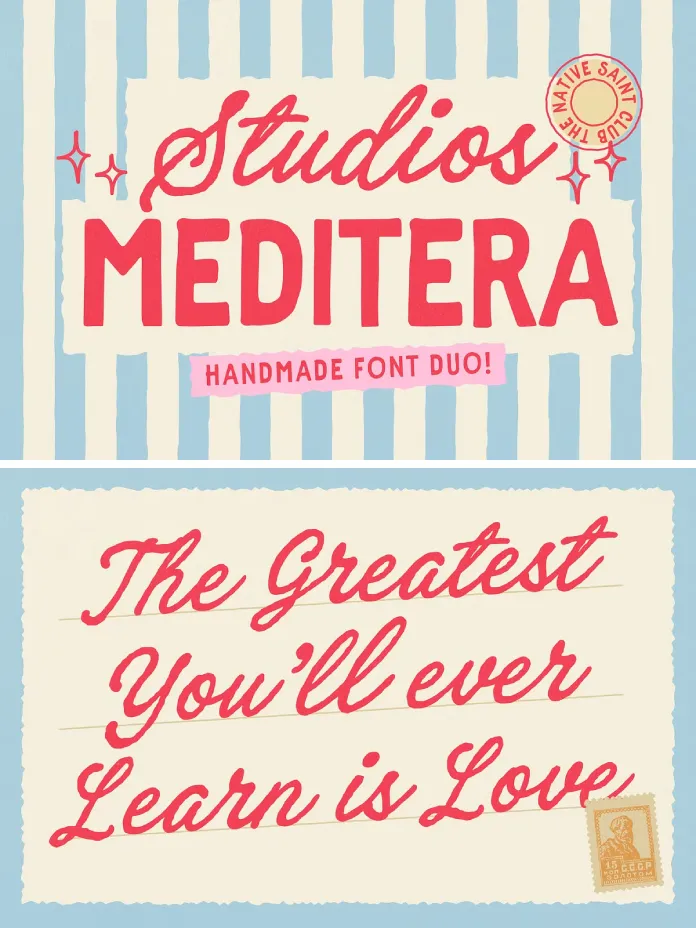
Is Studios Meditera the Best Hand-Drawn Mediterranean-Style Font Duo for Branding?
This duo landed in my type library on a Tuesday, and by Friday it had replaced three other script pairings in my active rotation. That speed of adoption rarely happens with a single typeface, let alone a duo. So I tested it across packaging mockups, café signage layouts, and a real client logo brief to see if the hype matched the hand lettering. This font duo, released through The Native Saint Club on Creative Market, pairs an organic script with a hand-drawn sans serif. Together they recreate the loose, sun-bleached charm of coastal storefront signs. This review breaks down where the duo excels, where it struggles, and why it might become a default choice for lifestyle branding in 2026.
What Makes Studios Meditera Different From Other Script Pairings?
Most script and sans-serif pairings feel engineered. This duo feels drawn. The script half carries visible brush pressure changes, slightly inconsistent baselines, and looping connectors that mimic real handwriting rather than vector-smoothed cursive. I call this quality “controlled imperfection”: deliberate irregularity that still reads cleanly at small sizes. The hand-drawn sans-serif partner uses soft terminals and uneven stroke widths, so it never fights the script for attention. Instead, it grounds the composition the way a simple hand-painted shop sign grounds an elaborate awning.
This pairing logic matters because Mediterranean branding has a specific visual vocabulary. Think weathered ceramic tile, faded café awnings, and hand-stenciled produce crates. This duo translates that vocabulary into a usable digital toolkit, rather than just referencing it through generic distressed textures.
How Does Studios Meditera Perform in Real Branding Projects?
I tested the duo across four project types: a packaging label, a restaurant menu, a social media template, and a logo concept. The script performed best at larger display sizes, where its handmade texture and organic curves read clearly. At smaller body-copy sizes, legibility dropped slightly, so I paired it with the sans serif for any supporting text. That pairing decision is exactly what the foundry intended, and it works.
Packaging and Labels
On a mock olive oil label, the script handled the brand name beautifully, while the sans serif handled ingredient details without competing for visual weight. The combination felt authentic rather than themed, which is the real test for any “vintage Mediterranean” font.
Logos and Wordmarks
For logo work, I recommend isolating two or three letters from the script rather than setting an entire word. The connecting strokes are gorgeous, but they can crowd shorter brand names if you do not adjust tracking manually.
Why I’m Calling This the “Coastal Authenticity Framework”
I built a quick framework while testing this duo, and I think it applies to any Mediterranean-inspired branding font. The Coastal Authenticity Framework rates a typeface on three axes: handmade texture, regional specificity, and small-size legibility. This pairing scores high on the first two and moderate on the third. That tradeoff is honest, and most foundries hide it. Here, the imperfection is the entire selling point, so accepting a legibility tradeoff at small sizes is reasonable.
Designers chasing a coastal aesthetic should weigh these three axes before buying any script font. A typeface can look beautiful in a marketing preview and still fail at six-point type on a label. This font duo does not pretend otherwise, and that transparency earned my trust faster than flashier duos I have tested previously.
Where Studios Meditera Falls Short
No font duo is perfect, and this one has real limitations. The character set, while solid, does not include extensive alternate ligatures beyond the standard set, so long brand names may repeat letterforms in noticeable ways. Additionally, the sans serif partner, while versatile, leans casual enough that it may clash with brands wanting a more corporate-adjacent feel alongside the script.
If your project needs heavy multilingual support with extended diacritics, test the glyph set first. Coastal European branding often requires accented characters, and not every handdrawn font handles those gracefully.
Who Should Use the Studios Meditera Font Duo?
This pairing suits café brands, boutique hospitality projects, artisanal packaging, and lifestyle apparel lines. It also works well for social media graphics, where a handmade, approachable tone builds trust faster than a polished corporate type. Brands targeting a younger, design-aware audience will likely respond to the casual confidence this duo projects.
| Category | Performance |
|---|---|
| Foundry | The Native Saint Club |
| Style | Organic script + hand-drawn sans-serif duo |
| Best Use Cases | Branding, packaging, menus, labels, apparel, social graphics |
| Display Legibility | Excellent at large sizes |
| Body Copy Legibility | Moderate, best paired with the sans-serif |
| Character Set | Standard, limited alternate ligatures |
| Ideal Brand Type | Coastal, artisanal, lifestyle, hospitality |
| Coastal Authenticity Score | High texture, high regional specificity, moderate small-size legibility |
Does Studios Meditera include a sans-serif partner?
Yes, the duo pairs an organic script with a hand-drawn sans-serif designed for supporting text and body copy.
Who designed the Studios Meditera font duo?
The Native Saint Club designed and released this font duo through Creative Market.
Is Studios Meditera legible at small sizes?
The script performs best at display sizes. For smaller body copy, pair it with the included sans-serif for better legibility.